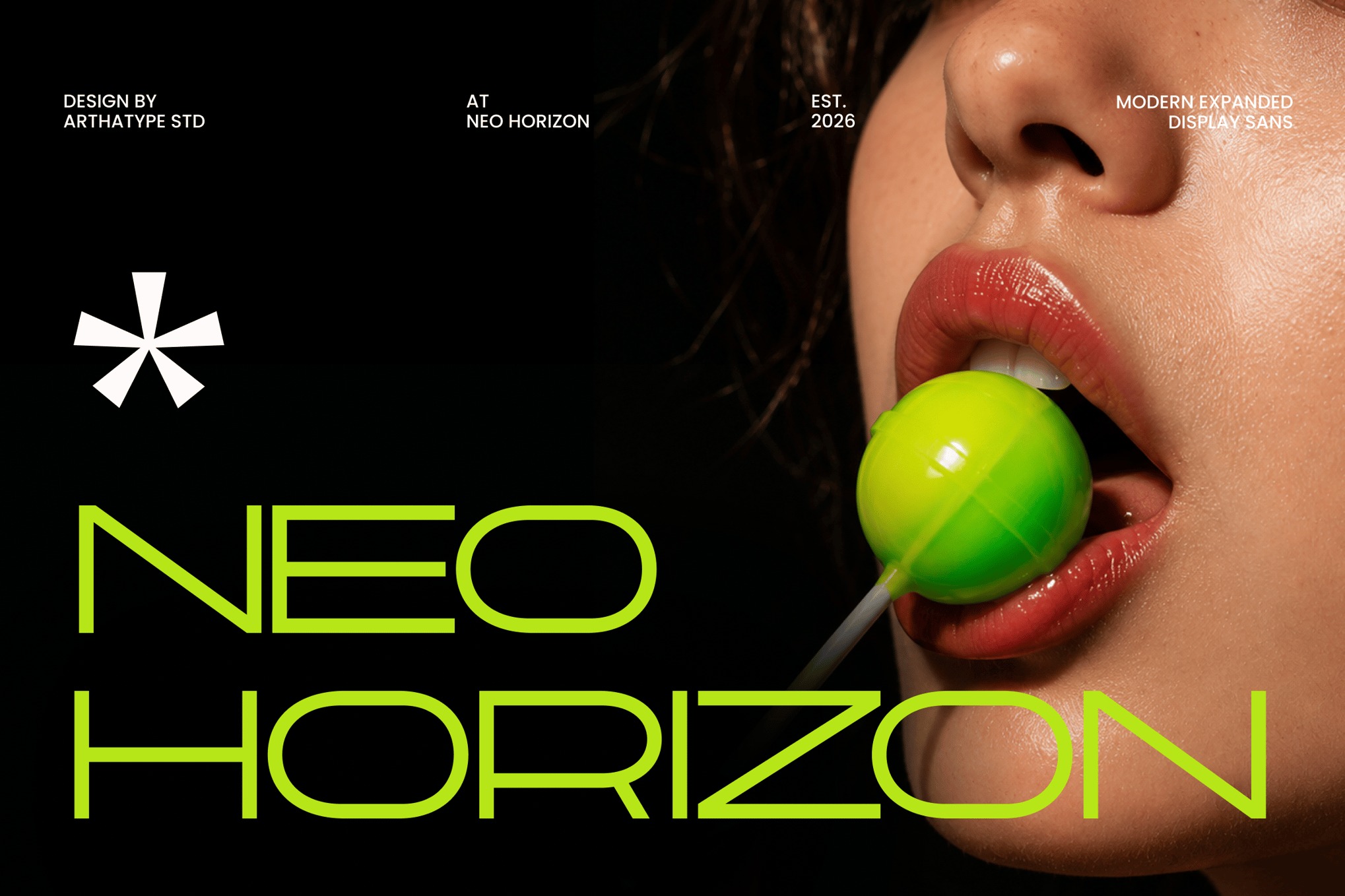
Neo Horizon – Modern Expanded Font
Neo Horizon – Modern Expanded Font is a professionally designed typeface that delivers clarity, structure, and consistent performance across various design applications. AT Neo Horizon, a modern expanded display sans by Arthatype Studio. Designed with wide proportions, clean geometric lines, and contemporary letterforms, this typeface delivers a sleek, confident aesthetic that instantly captures attention. Its modern character brings clarity, balance, and sophistication to every design while maintaining a bold visual presence.
Perfect for branding, logo design, editorial layouts, posters, packaging, advertising, website headers, product campaigns, technology brands, social media graphics, and creative visual identities, AT Neo Horizon adapts effortlessly across both digital and print media. Its expanded structure creates spacious, impactful headlines that feel progressive, refined, and instantly recognizable.
Every character has been thoughtfully crafted to combine modern simplicity with expressive personality. Whether you’re building a futuristic brand identity, launching a creative campaign, or designing bold promotional materials, AT Neo Horizon helps communicate your ideas with confidence, precision, and a distinctive contemporary style.
Uppercase & Lowercase
Numbers & Punctuation
Multilingual Support
Standard Ligatures
Stylistic Alternates
PUA Encoded
Smooth Kerning
Designed for creatives who appreciate clean aesthetics and bold visual communication, AT Neo Horizon offers the flexibility to elevate a wide variety of design projects. Its refined details, balanced proportions, and complete character set make it a dependable display font for creating memorable brands and impactful visual experiences.